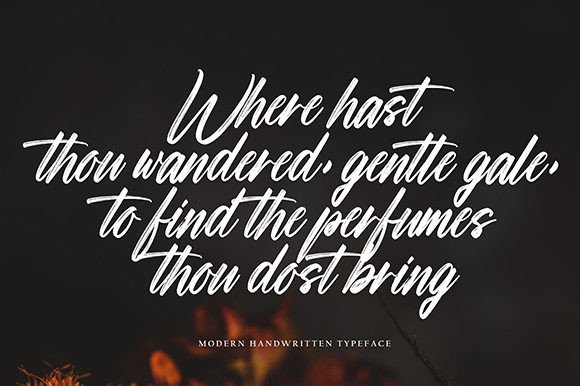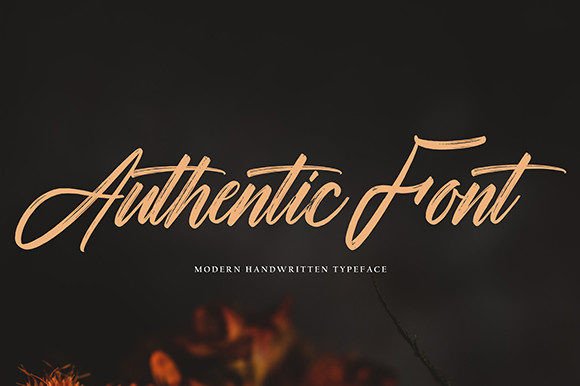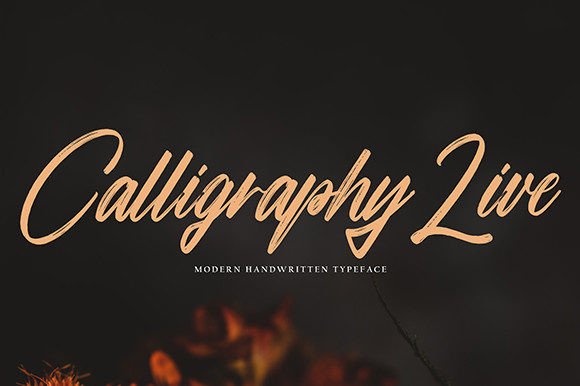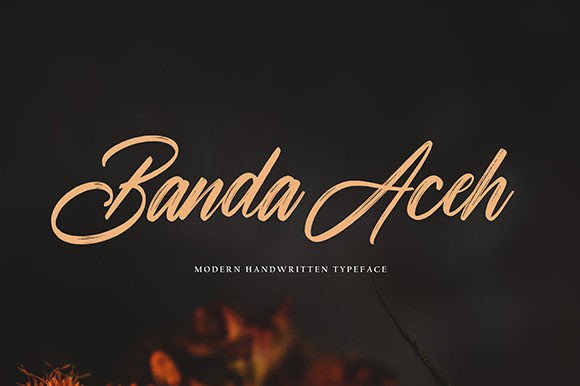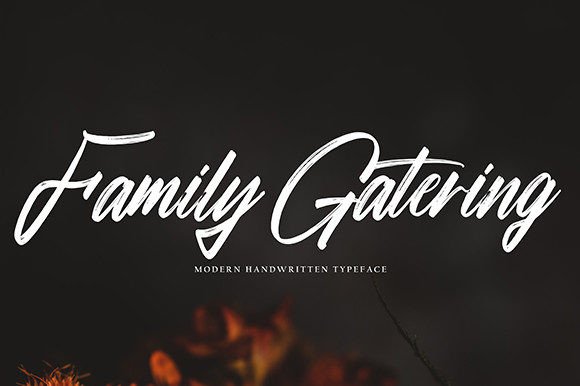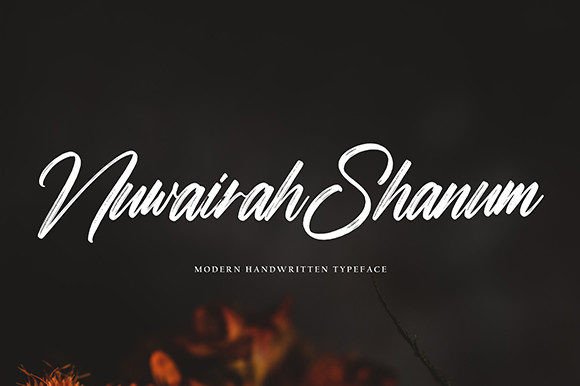
Introduction to Ralytesa Font
Ralytesa is a handwritten brush script designed to charm your projects.
From quotes and packaging to whatever else, this font will send the message you desire .